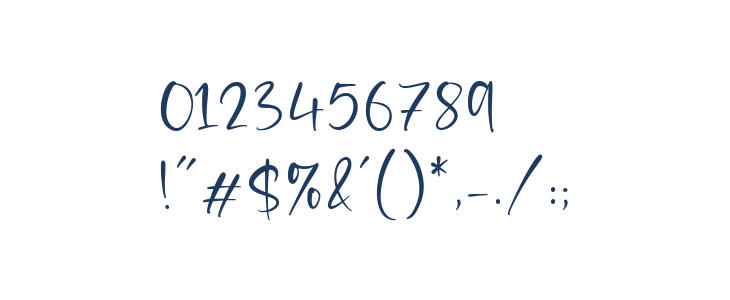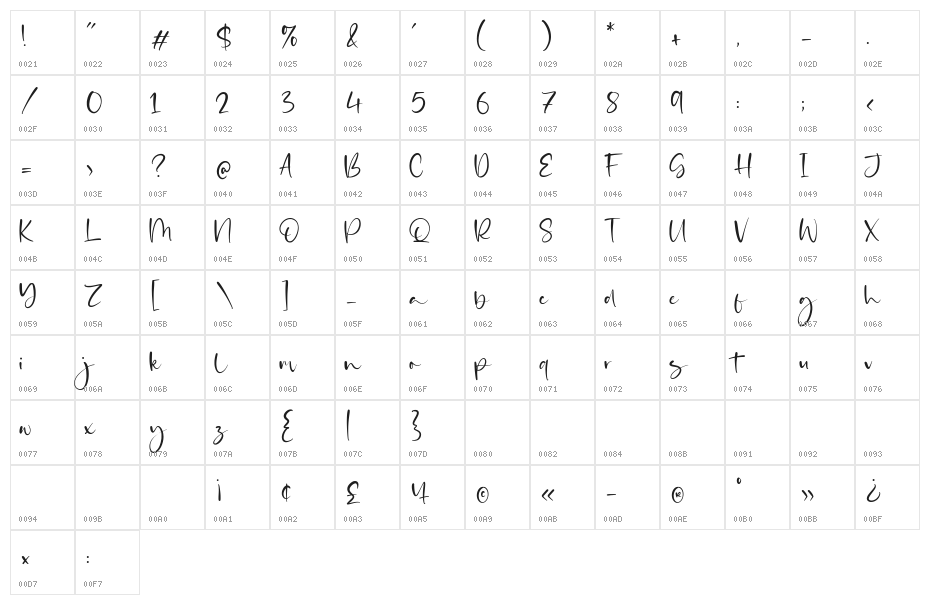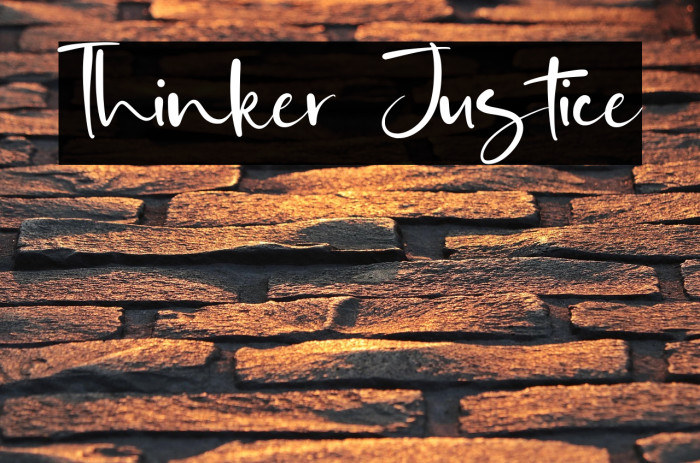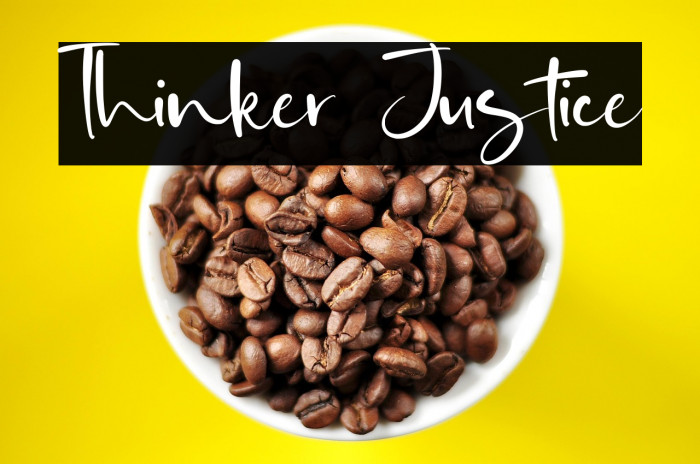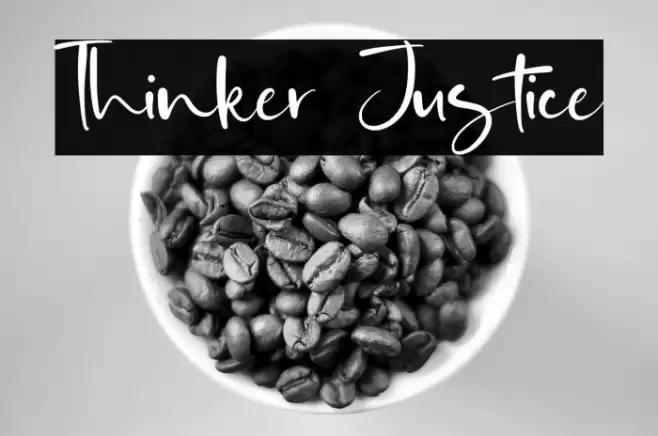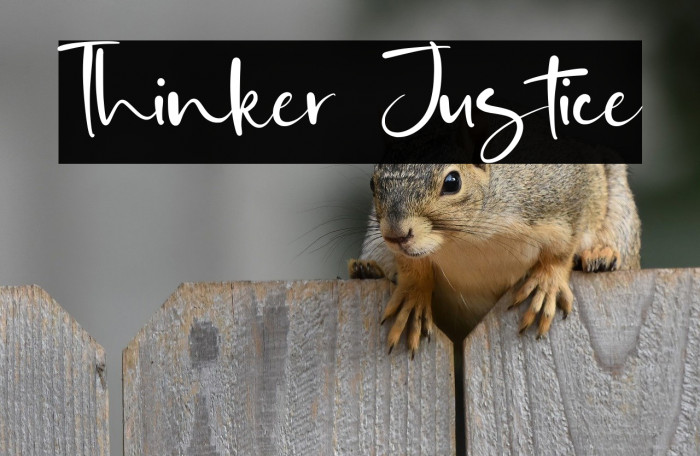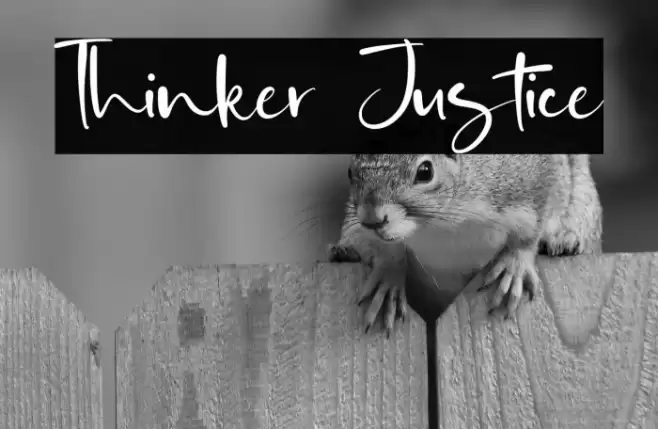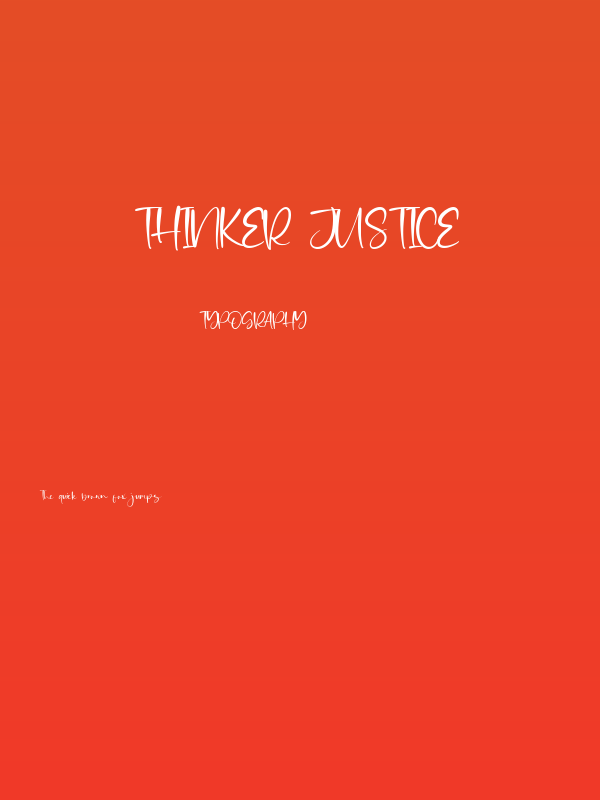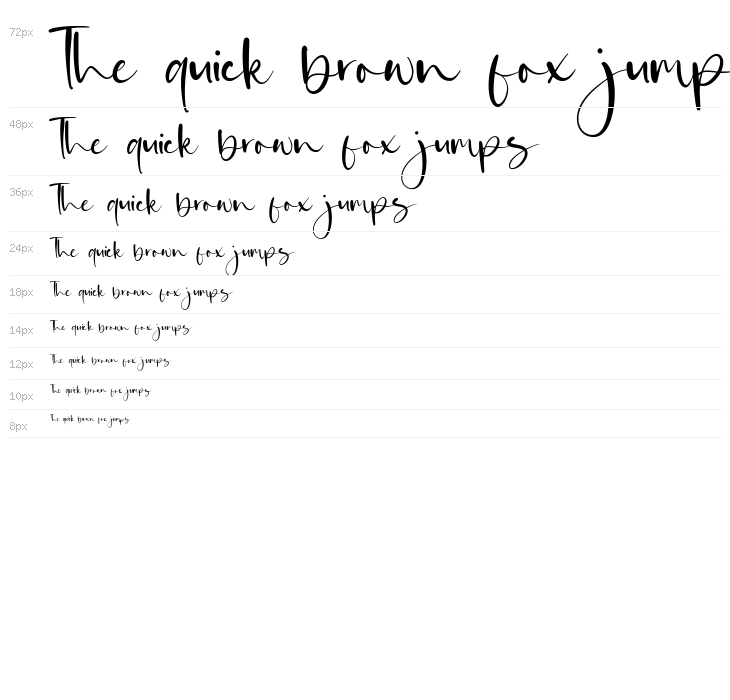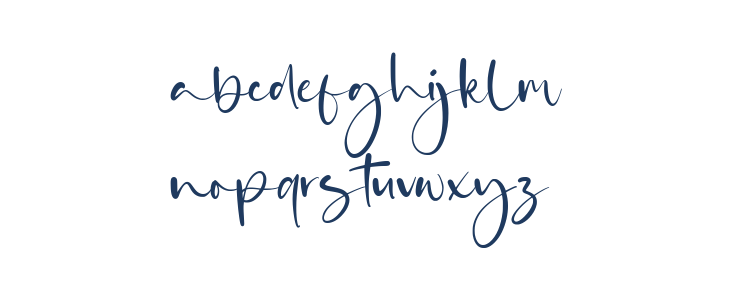
Thinker Justice Font
Thinker Justice Description
This font features a lively and expressive handwritten style, characterized by its fluid and dynamic strokes. The uppercase letters are bold and slightly slanted, giving a sense of movement and energy. The lowercase letters maintain a consistent flow, with some characters featuring loops and flourishes that add to the overall playful aesthetic. The numerals are clear and legible, with a slight tilt that complements the cursive nature of the alphabet. Special characters are creatively designed, maintaining the whimsical and artistic feel of the font. This typeface exudes a sense of creativity and spontaneity, making it ideal for projects that require a personal and artistic touch.